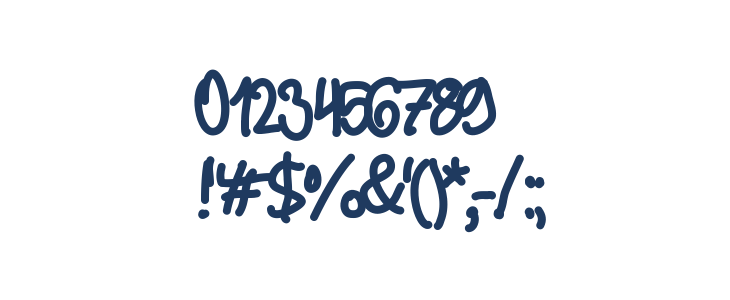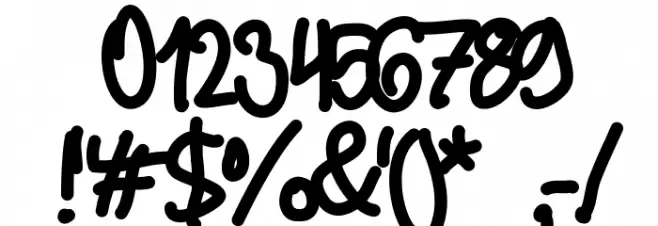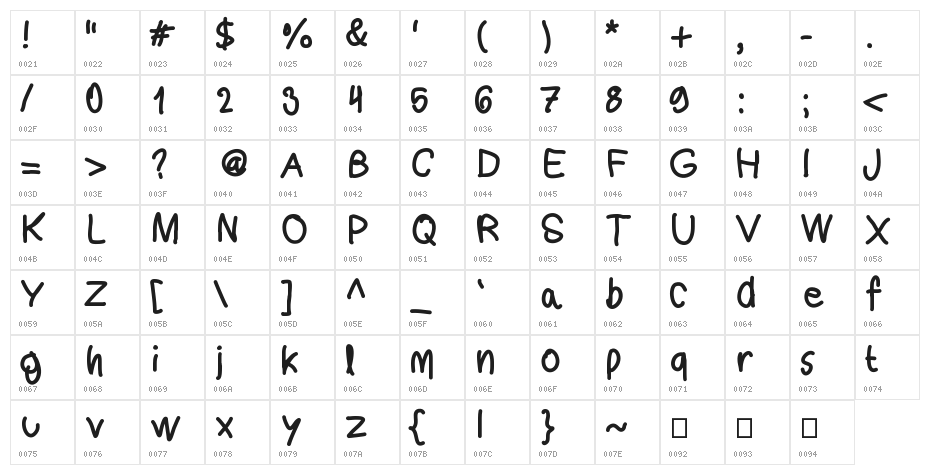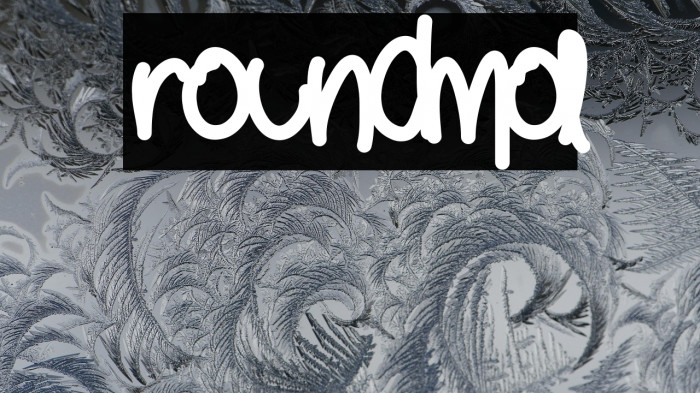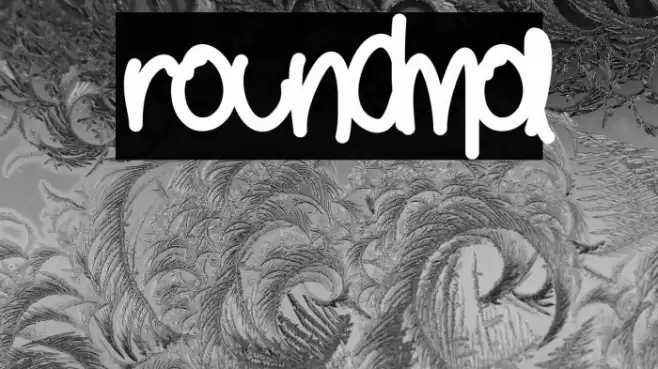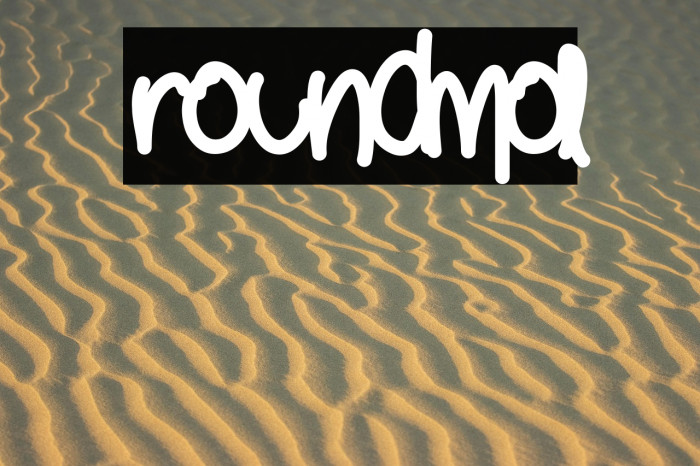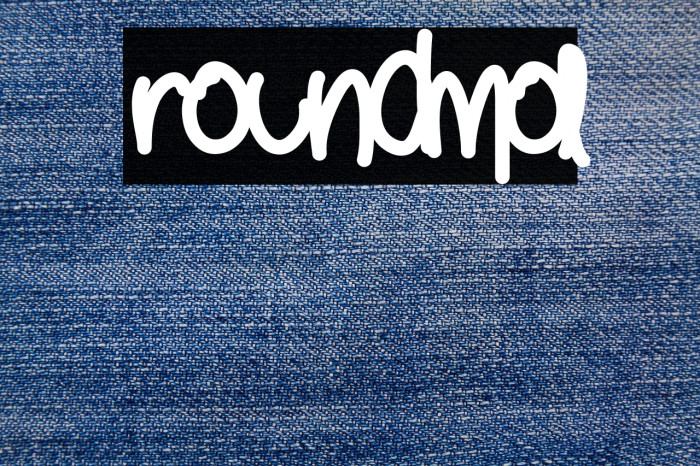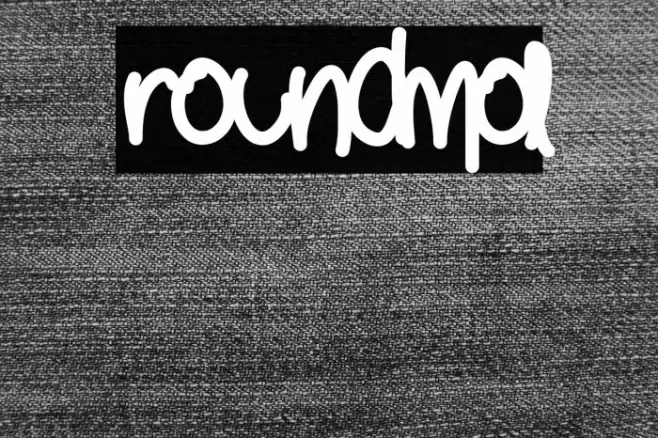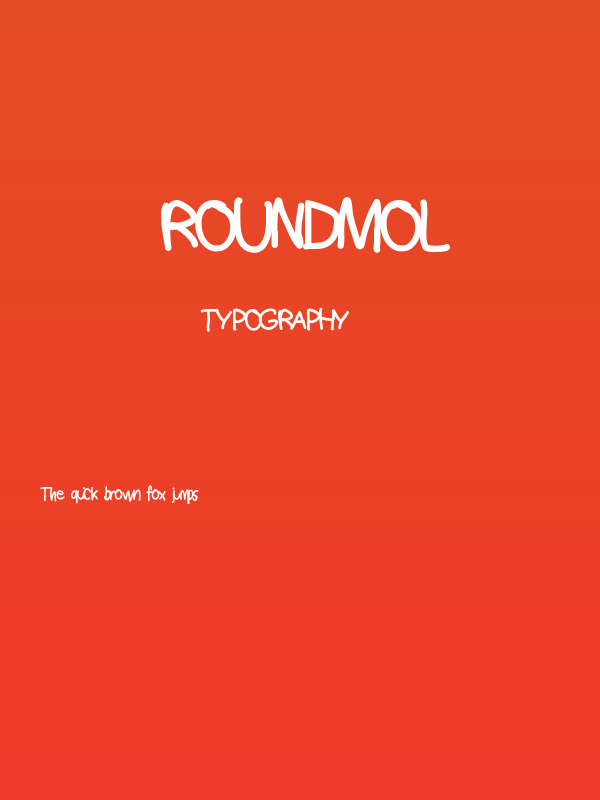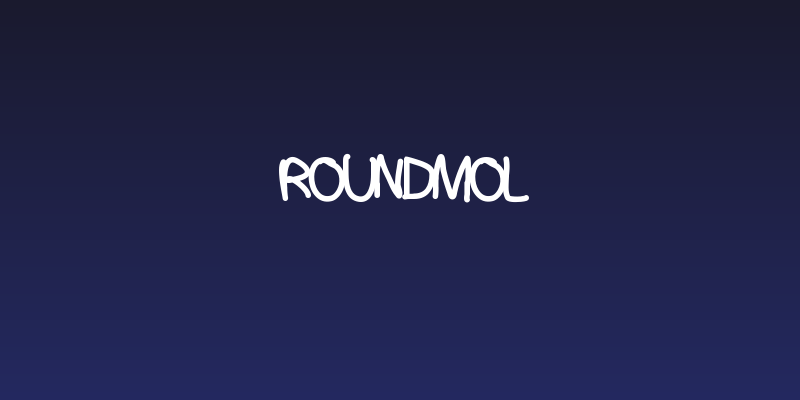
roundmol Font
roundmol Description
This font features a playful and casual handwritten style, characterized by its bold and rounded letterforms. The strokes are consistent in thickness, giving it a uniform appearance. The uppercase and lowercase letters maintain a cohesive look, with slightly exaggerated curves and loops that add to its informal charm. The numbers and special characters follow the same stylistic approach, ensuring a harmonious overall design. This font is well-suited for projects that require a friendly and approachable aesthetic.
| Proposed Projects | Ideal for greeting cards, children's books, playful branding, and social media graphics. |